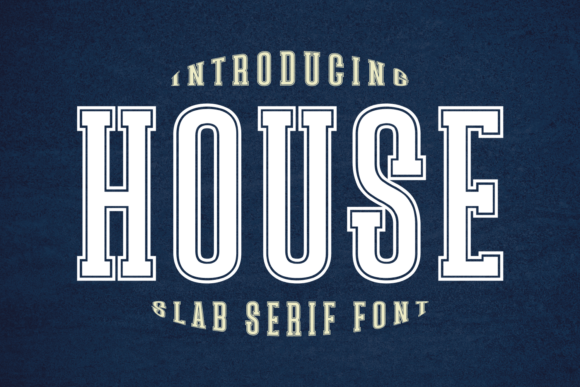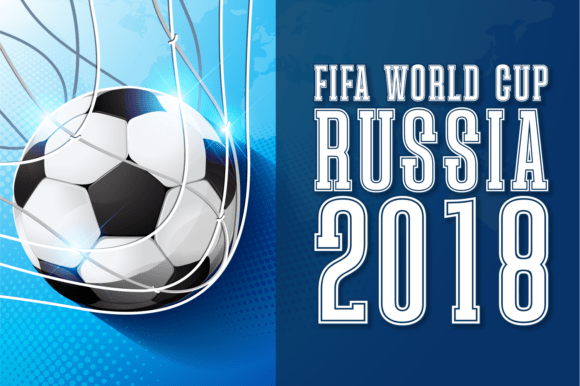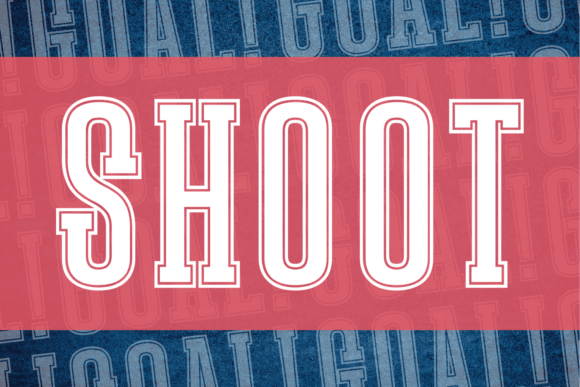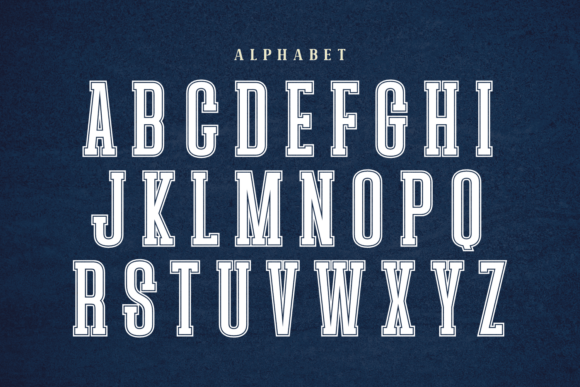
House Font
About the House Font
Discover the charm of House Font. This font is a perfect blend of modern aesthetics and classic appeal. Immerse yourself in the striking sophistication of the House font, a dazzling exhibit of bold collegiate slab serif design. Possessing an undeniable charm, this font breathes life into any creative discourse with its audacious and distinctive character. Marvel at the versatility of House, a gem that will amplify the allure of your typography collection. An asset that does more than just exist, it has the ability to escalate the caliber of your creativity to unimagined heights.
House excels in headlines, short-form text, and branding applications where a strong, confident presence is desired. Its bold forms command attention, making it ideal for posters, logos, and packaging for premium products. However, its weight and strong serifs make it less suitable for body text or lengthy paragraphs; readability suffers at smaller sizes.
The overall personality of House is bold, confident, and sophisticated, lending itself to brands aiming for a premium, authoritative image. It projects a sense of heritage and tradition while maintaining a contemporary edge.
House Font Usage Examples